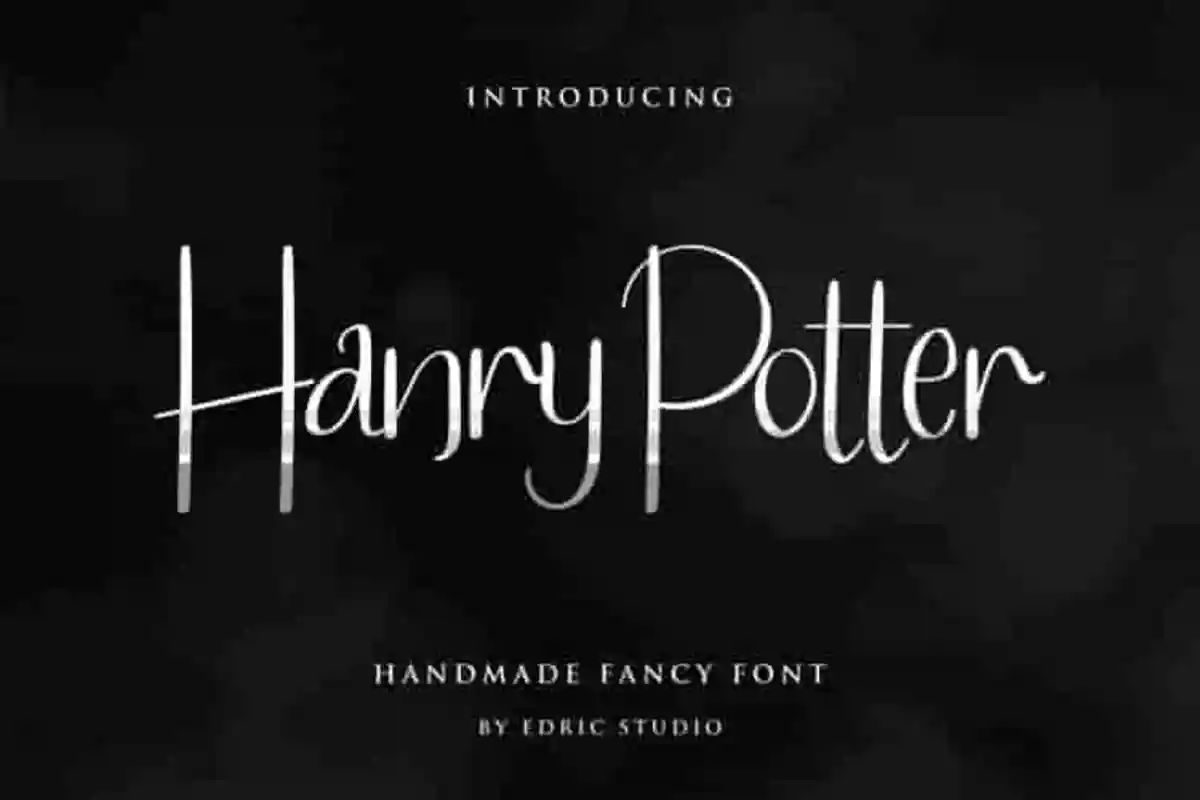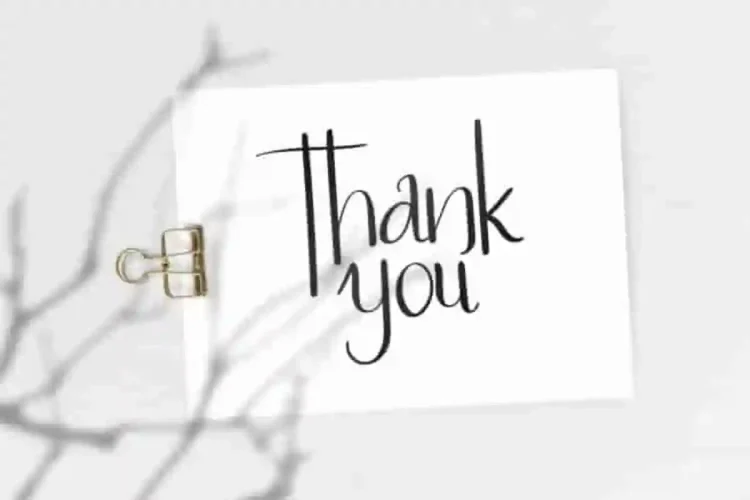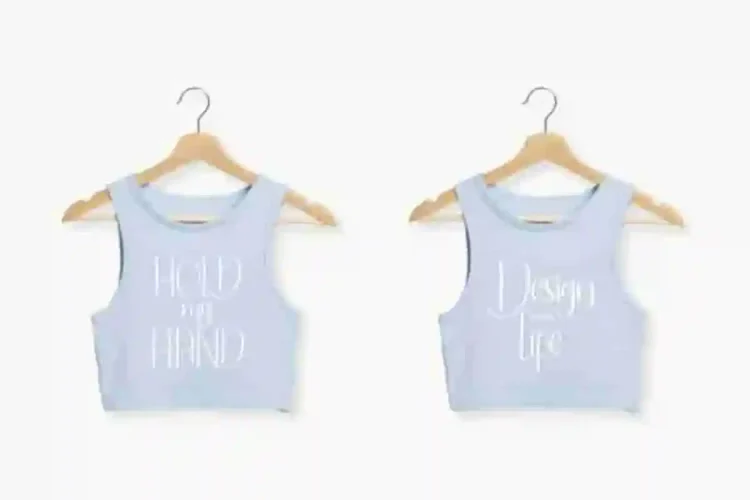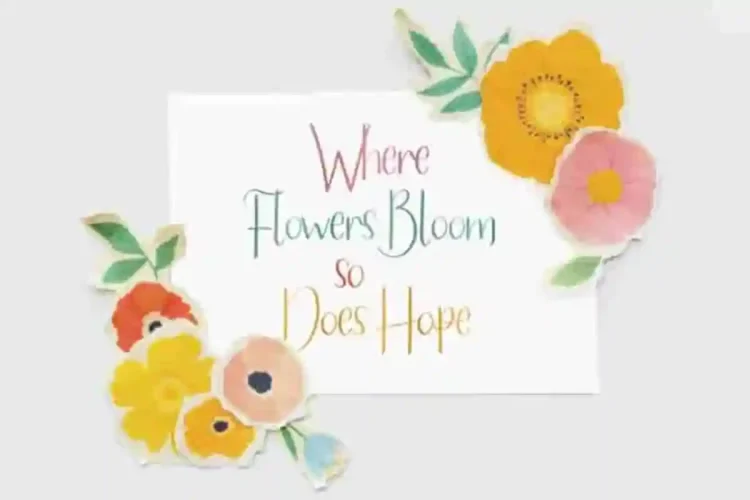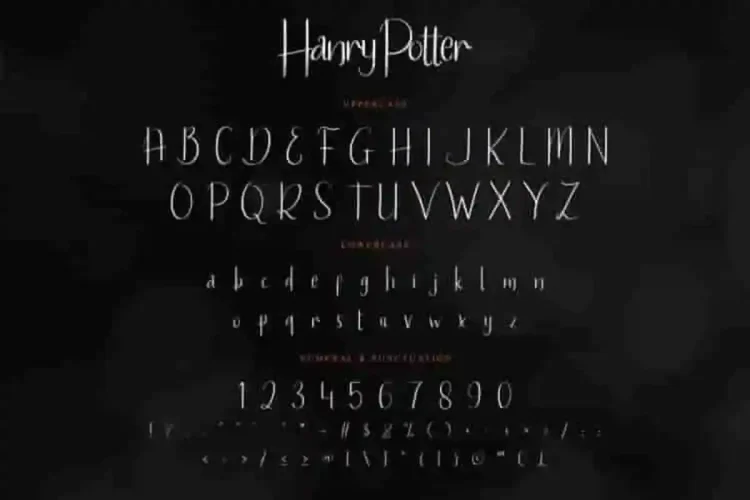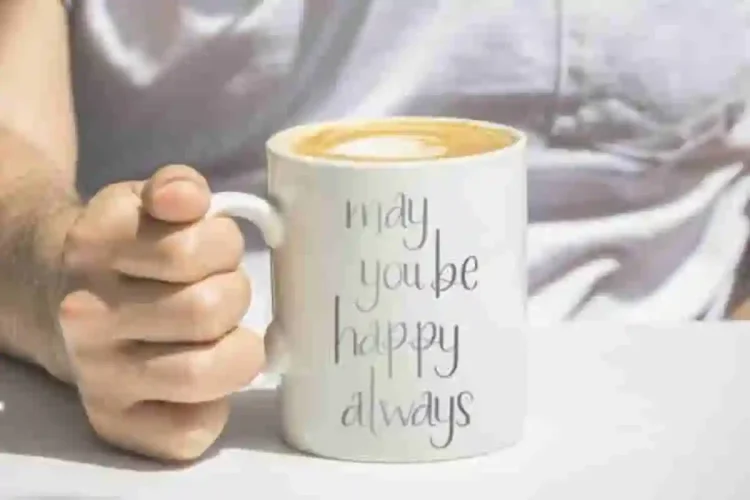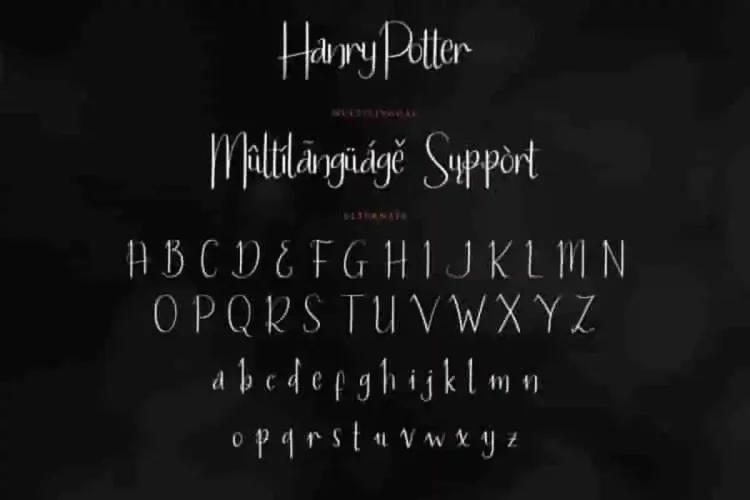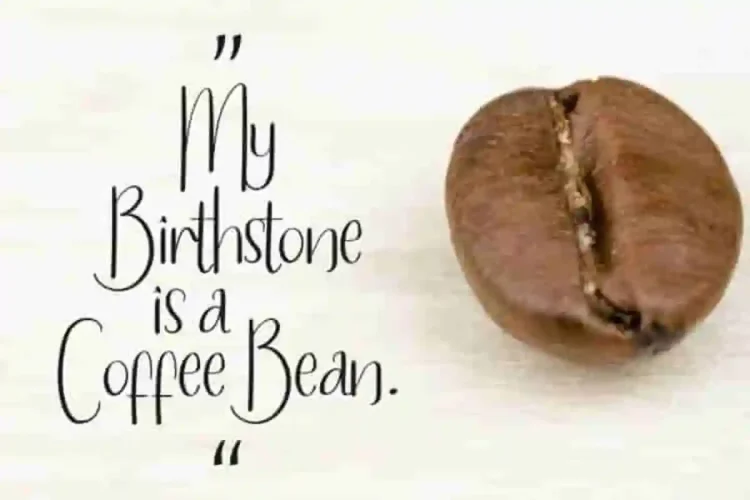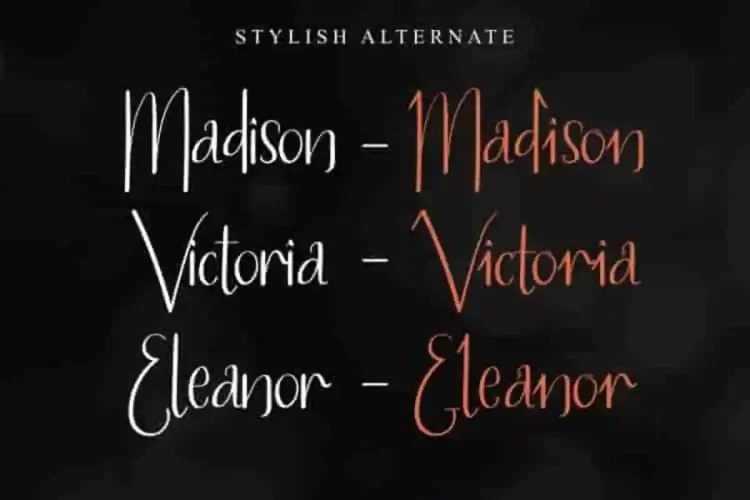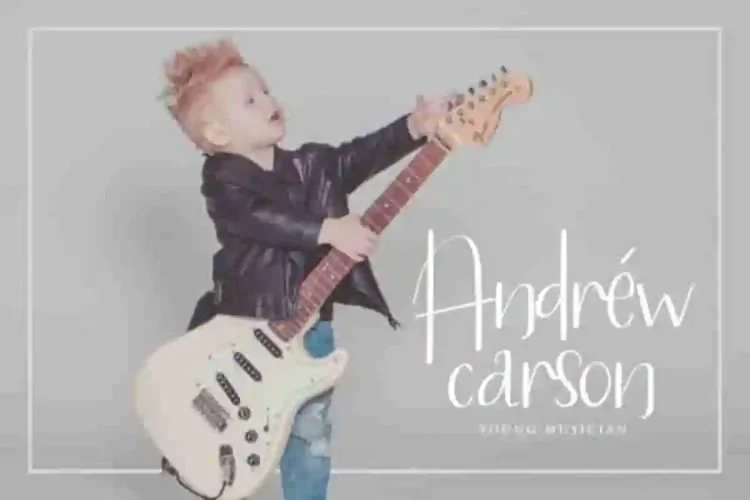
Hanry Potter Handwritting Script Font
Hanry Potter Handwritting Font is a fancy handwriting script font with unique style. Hanry Potter Handwriting Font, a unique handwritten script font designed by Widi and Sarah in our Indonesia-based studio.
Hanry Potter Font is an exclusive handwritting script with unique styles : fun, cartoon, casual, stylish  and classic style. It has a great characters set, perfectly managed with well spaced and kerning.
Hanry Potter Font will be great for any projects  including : branding and logo (with extended license), stationery, business card, signage, flyer, brochure etc. Many industries will be match for this typeface: school, wedding, events, non profits foundation, florist, gardening, makeup artist, travel, hotel, musician etc